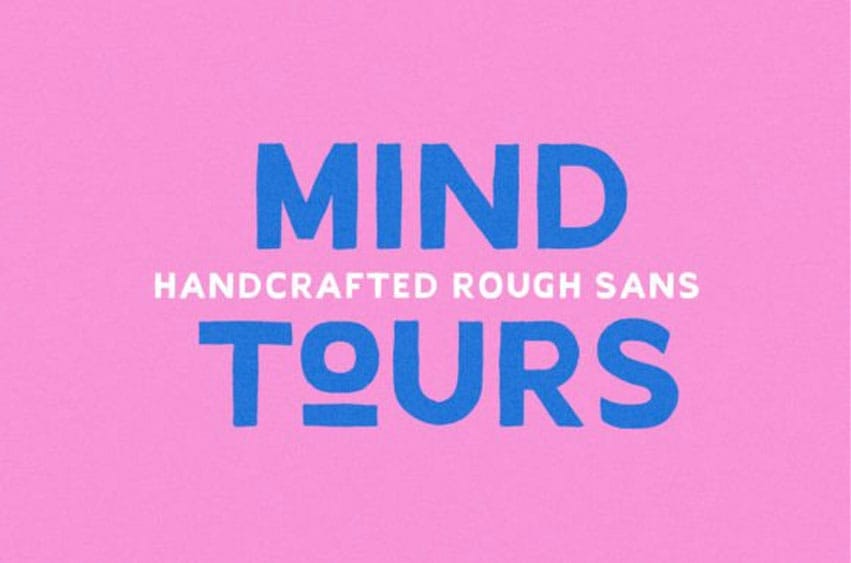
Mind Tours Font is a handcrafted sans with an organic, rough, and personal touch. You can use these fonts for many purposes, such as logotype, quotes, or any projects that require a handmade look.
With different uppercase and lowercase letters, you can choose what you want or combine them in a word. These fonts also support multiple languages!